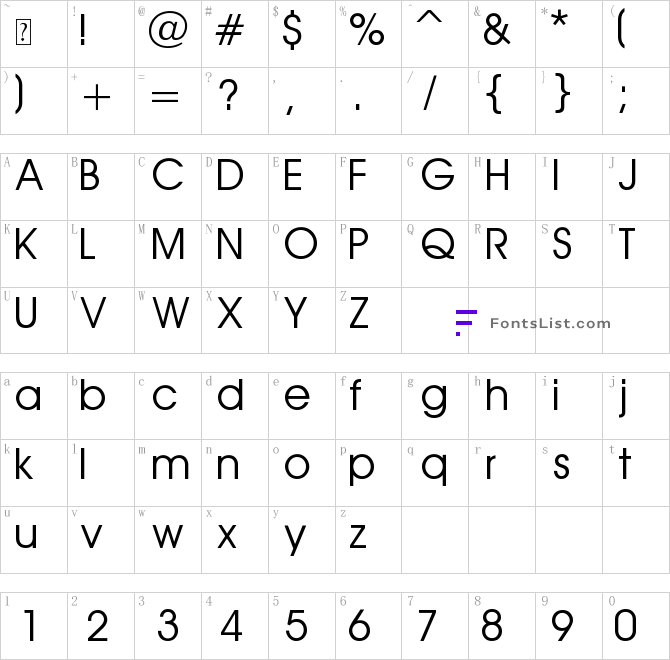
- Font Name:Aerolinea
Aerolinea.ttf is a very beautiful artistic font, Aerolinea.ttf is widely used in the design and printing of various books and pictures,Aerolinea.ttf has a strong visual impact,Aerolinea.ttf is a commonly used font in newspapers, magazines and books, and is used in posters, e-commerce Poster design, store design, logo design, font design and other fields.Aerolinea.